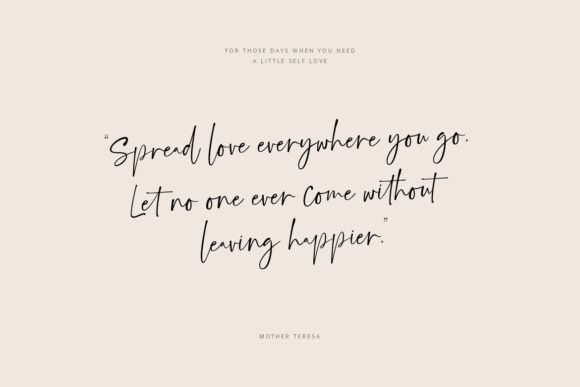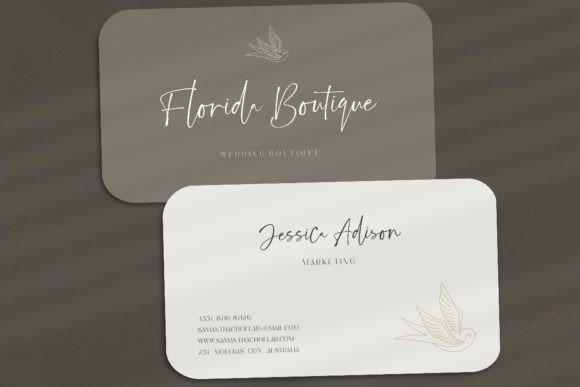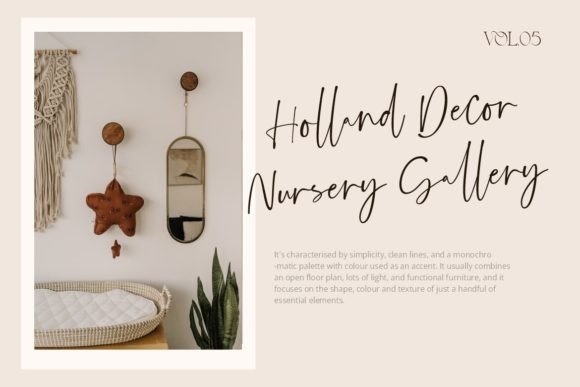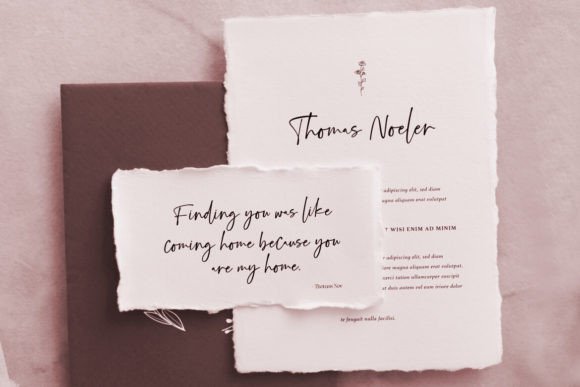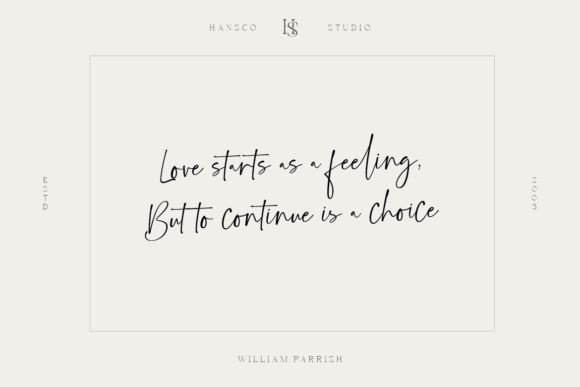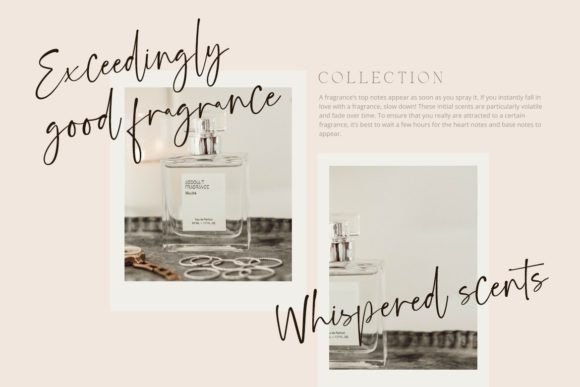
Introducing Cathelia Font: The Perfect Addition to Your Design Projects
Are you a designer or crafter looking for a modern, casual, and feminine handwritten font to elevate your projects? Look no further than Cathelia Font! This beautiful font is perfect for a wide range of applications, from quotes and menus to taglines, flyers, posters, invitations, and more.
What Makes Cathelia Font So Special?
Cathelia Font is a versatile and stylish addition to any design project. Its modern, casual, and feminine style makes it perfect for projects that require a touch of elegance and sophistication. The font comes with a full range of characters, including uppercase and lowercase letters, numbers, punctuation, and ligatures, making it a highly usable addition to your project.
Suitable Projects for Cathelia Font
So, what projects are suitable for Cathelia Font? The answer is: many! Here are some ideas to get you started:
- Quotes: Add a touch of elegance to your inspirational quotes with Cathelia Font.
- Menus: Elevate your restaurant or cafe menu with this beautiful font.
- Taglines: Create memorable taglines for your brand or business with Cathelia Font.
- Flyers: Design eye-catching flyers for events, promotions, or services with this modern font.
- Posters: Create stunning posters for advertising, marketing, or decorative purposes.
- Invitations: Add a touch of sophistication to your wedding, birthday, or event invitations.
- Greeting Cards: Design beautiful greeting cards for special occasions with Cathelia Font.
- Business Cards: Elevate your business card design with this modern and feminine font.
- Clothing: Use Cathelia Font to create stylish and eye-catching text for clothing and apparel.
- Letters and Stationery: Add a touch of elegance to your letters and stationery with this beautiful font.
Features of Cathelia Font
Cathelia Font comes with a range of features that make it a highly usable and versatile font. Some of its key features include:
- Full uppercase and lowercase characters
- Numbers and punctuation
- Ligature characters for added style and elegance
- Extensive language support
PUA (Private Use Area) encoding is a feature that allows designers to access a wide range of glyphs and ligatures with ease. This means that you can easily access and use the font’s built-in swashes, ligatures, and other special characters to add a touch of elegance and sophistication to your designs.
Why Choose Cathelia Font?
So, why choose Cathelia Font for your design projects? Here are just a few reasons:
- Unique and stylish design
- Highly versatile and usable
- Perfect for a wide range of projects
- Easy to use and access with PUA encoding
- Extensive language support
| Font Name | Cathelia Font |
| Author | HansCo |